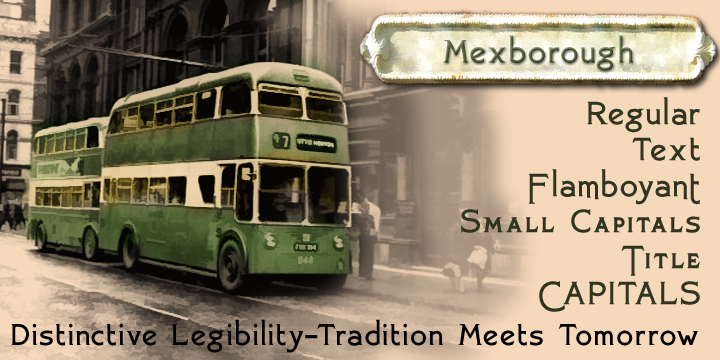
Mexborough is a historical font family. This typeface has six styles and was published by Greater Albion Typefounders.
Tradition meets tomorrow in Mexborough. Mexborough owes its origins to a challenge from a client of ours- they wanted a clear and easily readable typeface to use for signage in public spaces, but with enough flair and style to be suitable for use in heritage precincts. The result is a family of six Roman faces in a single weight, encompassing Regular, Text, Flamboyant, Small Capitals, Capitals and Title forms. These faces combine legibilty with traditional character, ideal for signage and poster work, where dignity and character are required. Mexborough’s simple clean lines also lend themselves readily to web and online use.